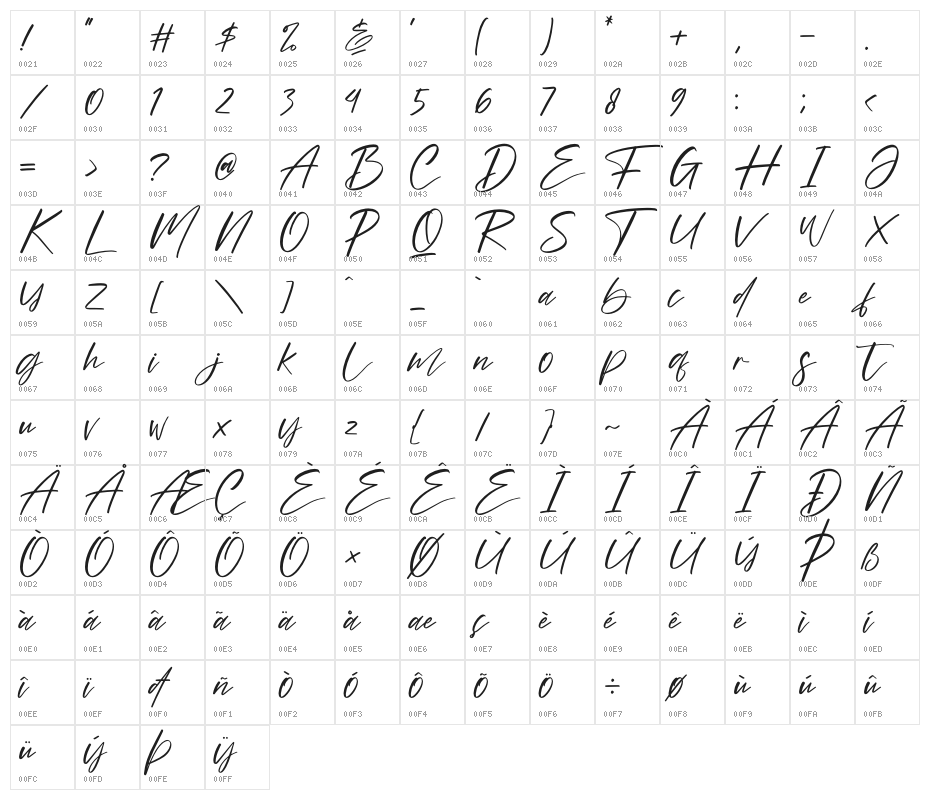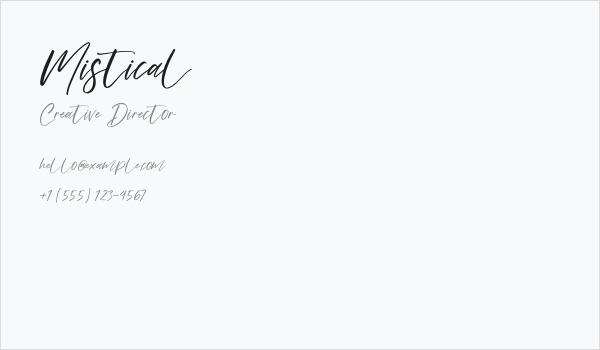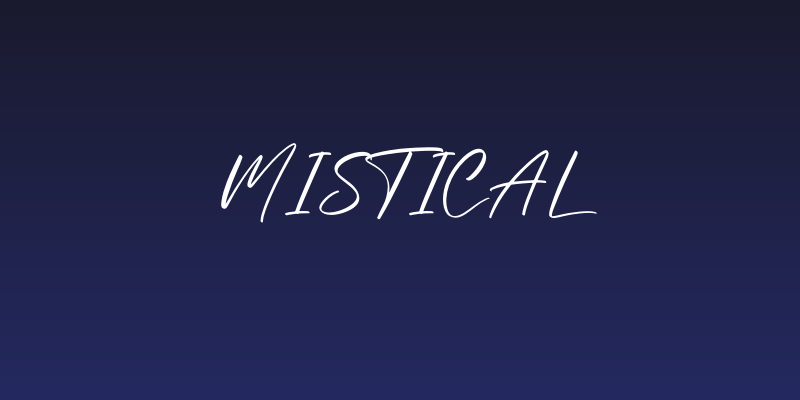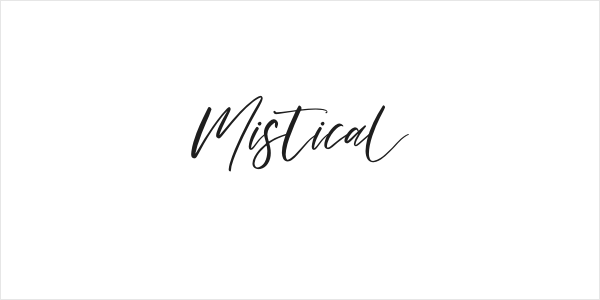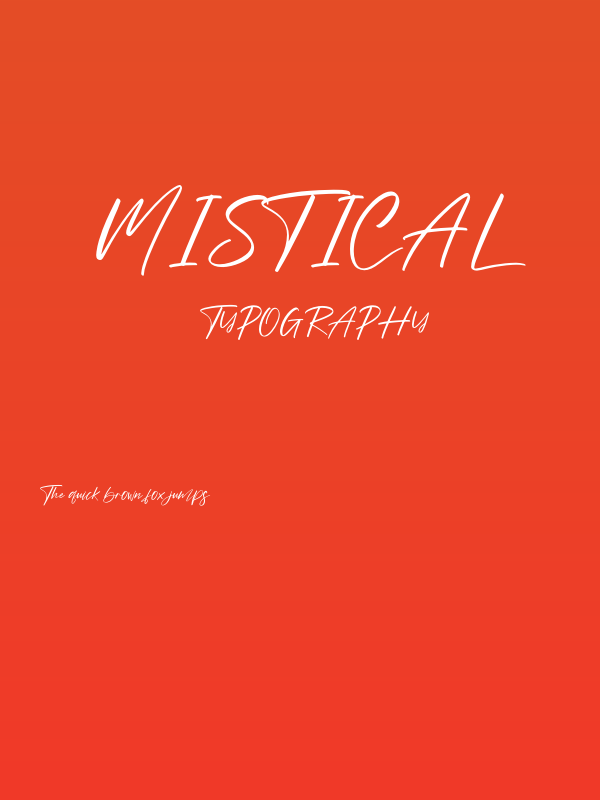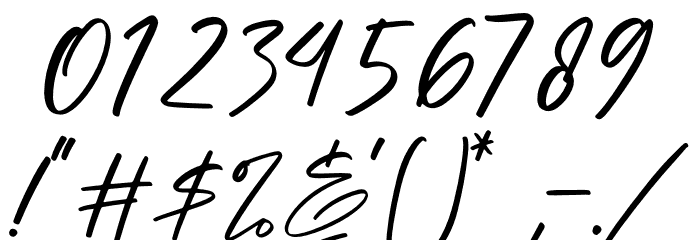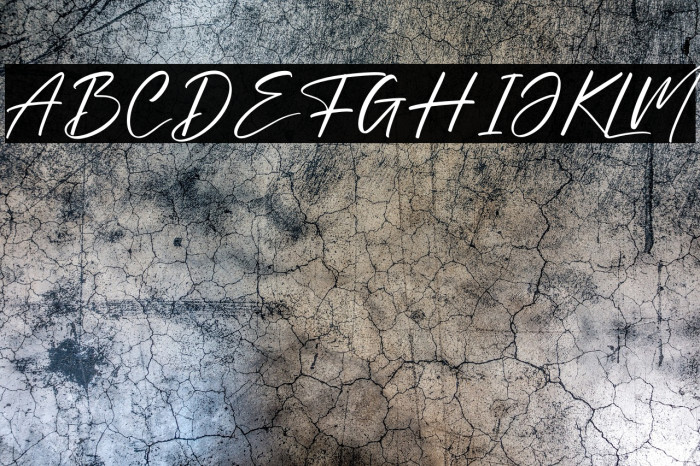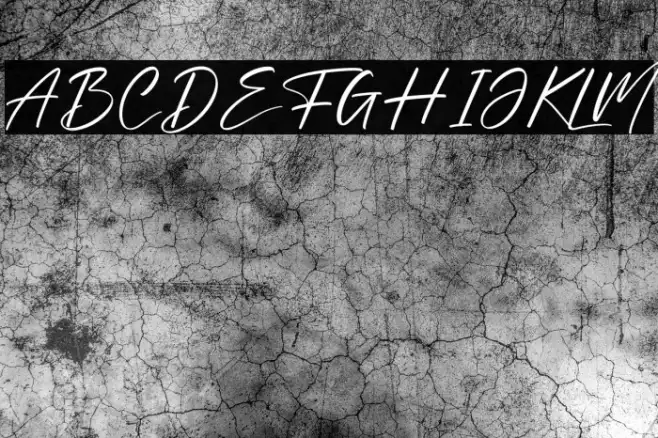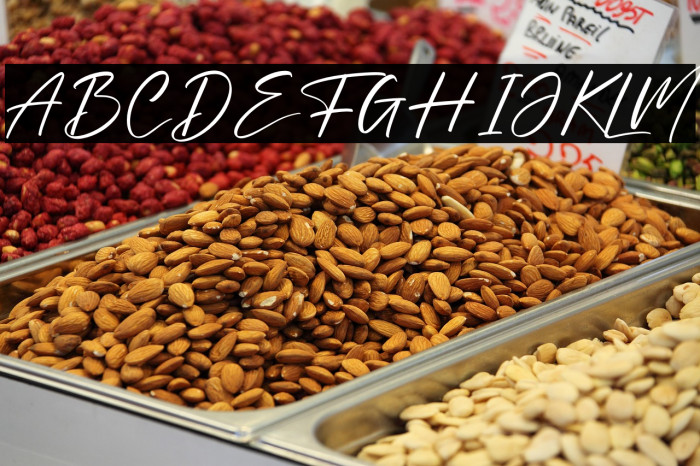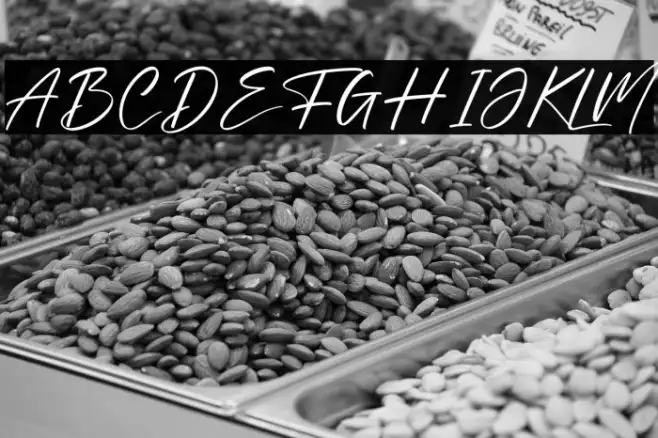
Mistical Font
Mistical Description
This font exudes a dynamic and energetic feel with its fluid, handwritten style. The letters are crafted with a natural, flowing motion, giving them a personal and expressive touch. The strokes vary in thickness, adding a lively contrast that enhances its visual appeal. The uppercase and lowercase letters maintain a consistent style, while the numbers and special characters integrate seamlessly, offering versatility. This font is perfect for projects that require a personal, artistic touch, such as invitations, greeting cards, or branding materials.
| Proposed Projects | Ideal for invitations, greeting cards, branding, and artistic projects. |